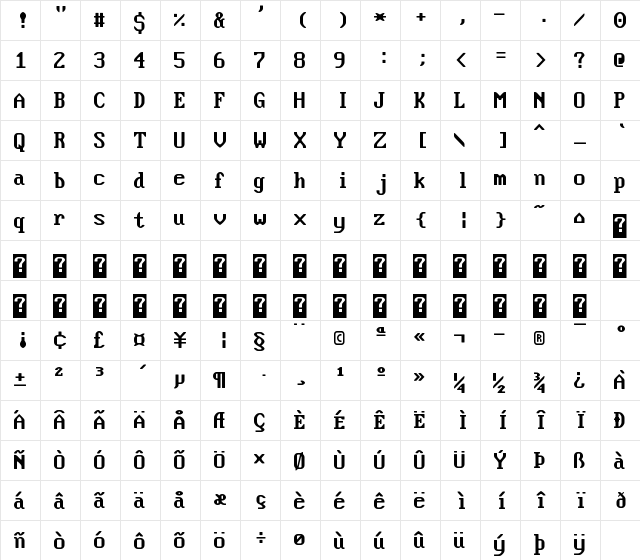
Flexi IBM VGA False Regular
| Foundry | VileR |
| Designer | VileR |
Design Context for Flexi IBM VGA False Typeface
Flexi IBM VGA False offers clean, dependable letterforms without strong stylistic allegiance, making it a practical choice for designers who need flexibility.